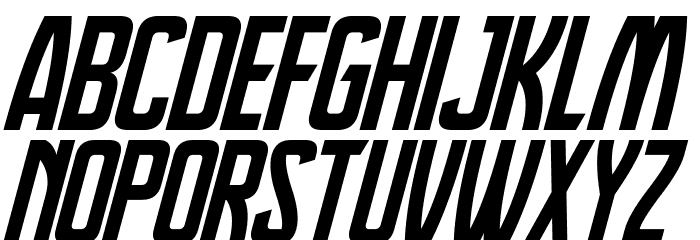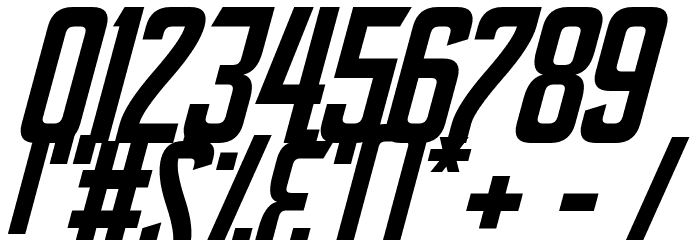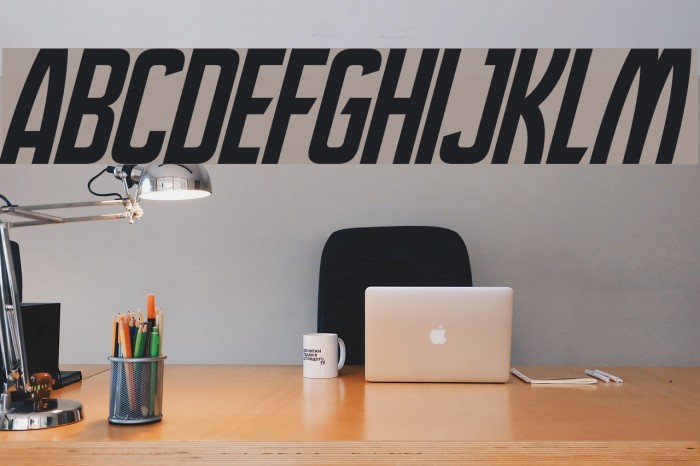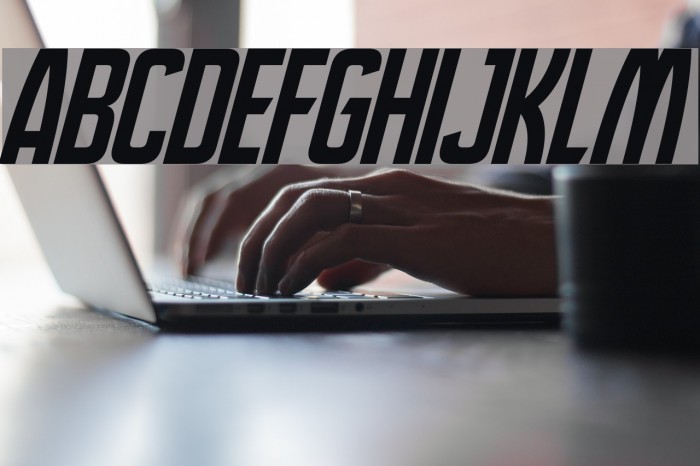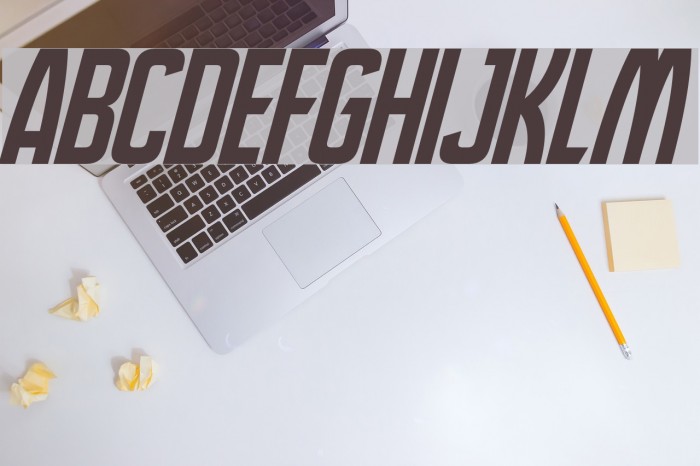
Dreamlands Italic Font
This font features a bold and dynamic italic style, characterized by its strong, angular lines and condensed letterforms. The uppercase and lowercase letters maintain a consistent slant, giving the typeface a sense of motion and energy. The numerals and special characters are designed to complement the alphabet, with a similar boldness and angularity. The overall appearance is modern and assertive, making it suitable for impactful designs.
A bold, italic font with angular, condensed letterforms.
- Proposed Projects: Ideal for sports branding, dynamic posters, and modern advertising campaigns.
- Character Spacing: Tight